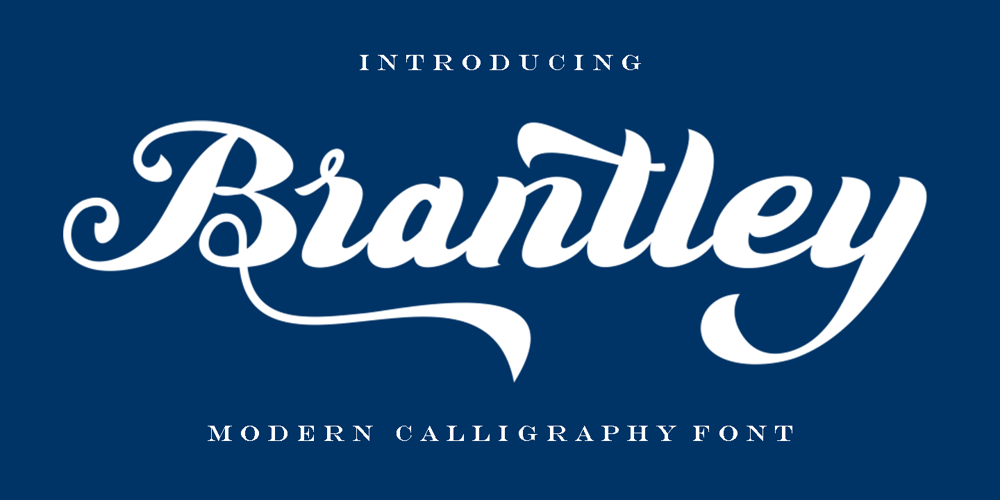
Brantley Script Font Family was designed by Teuku Saifullah and published by Shape Studio. Brantley Script contains 1 styles and family package options. Brantley Script is a romantic and vintage script. It Can be used for various purposes such as logos, wedding invitations, t-shirts, letterhead, signage, news, posters, badges and more.Brantley Script features 300+ glyphs and extruded fonts, alternative characters, binders.To activate the OpenType Stylistic alternative, you need a program that supports OpenType features such as Adobe Illustrator CS, Adobe Indesign & CorelDraw X6-X7.How to get alternative glyphs from open type fonts:http://youtu.be/iptSFA7feQ0There are additional ways to access alternatives, using Character Map (Windows), Nexus Fonts (Windows), Font Book (Mac) or software programs such as PopChar (for Windows and Mac).How to access all alternative characters, using Windows Character Map with Photoshop:https://www.youtube.com/watch?v=Go9vacoYmBw